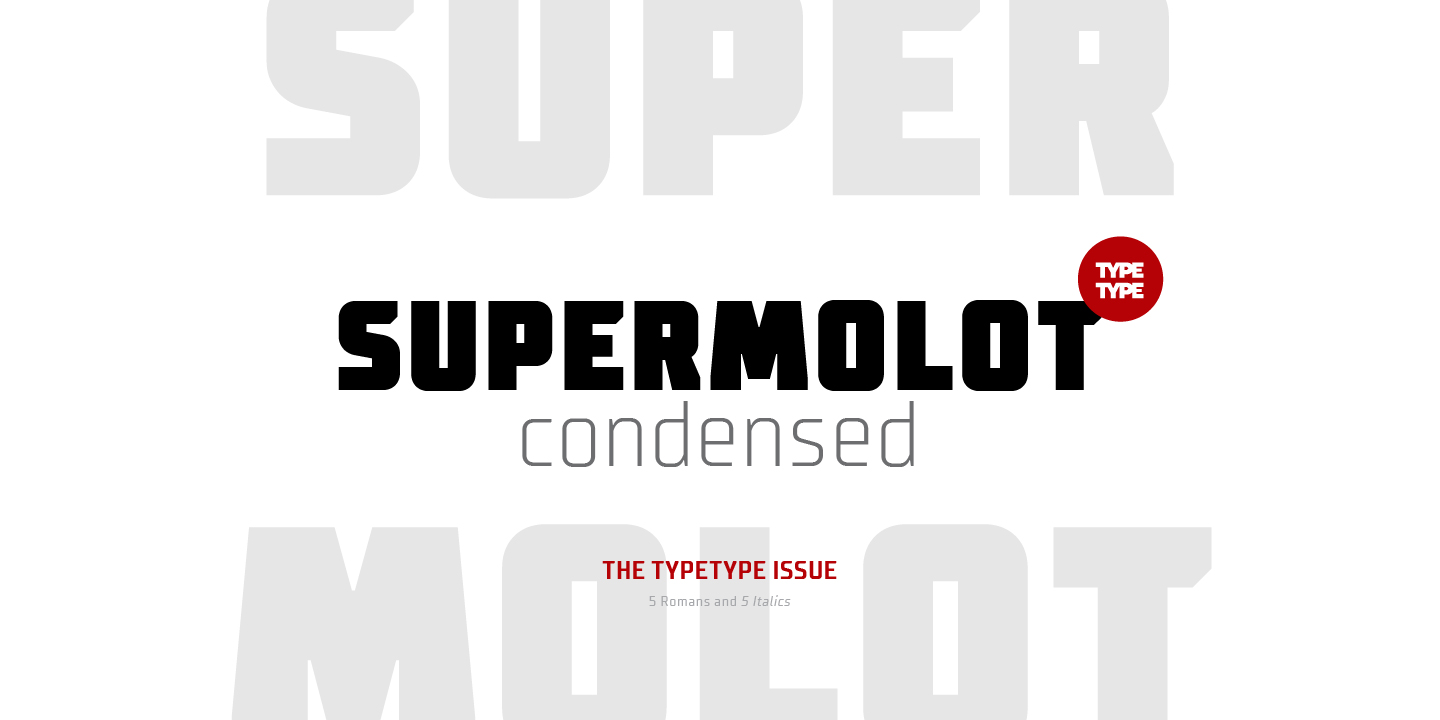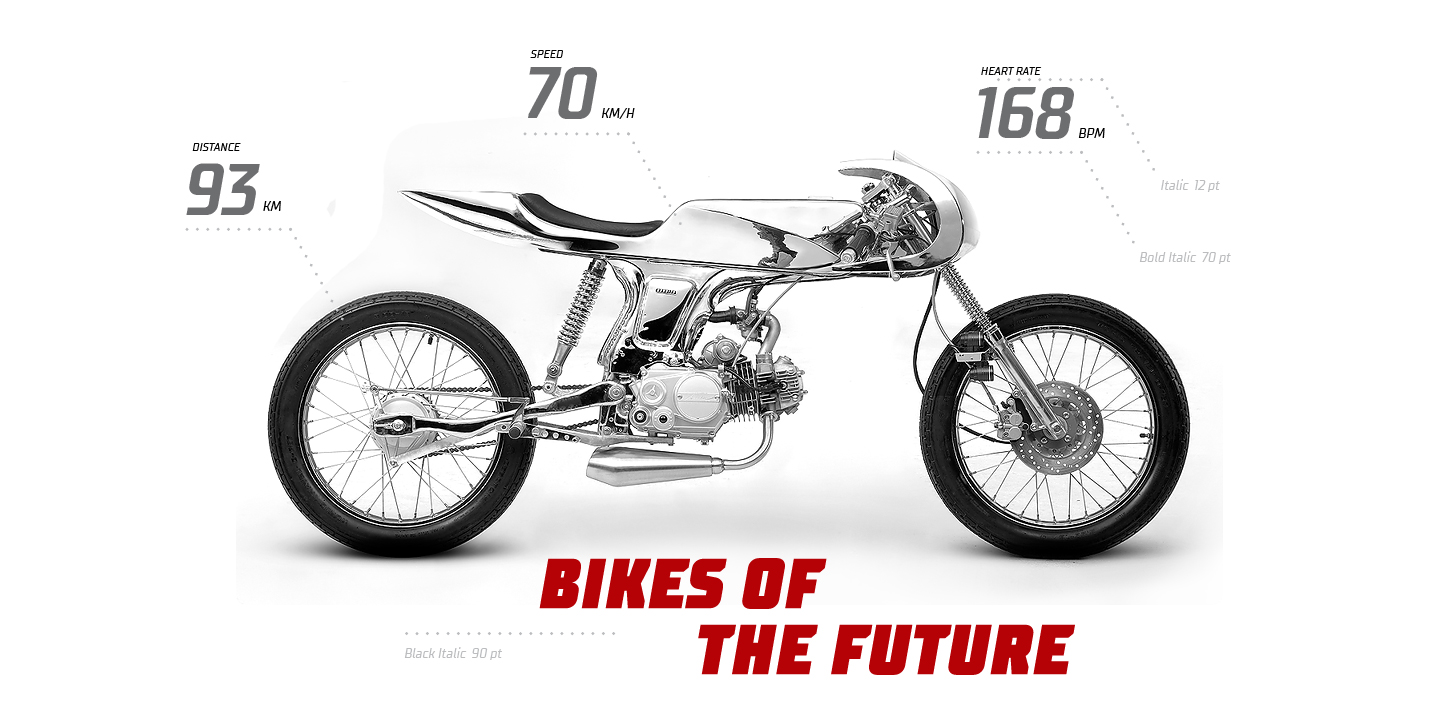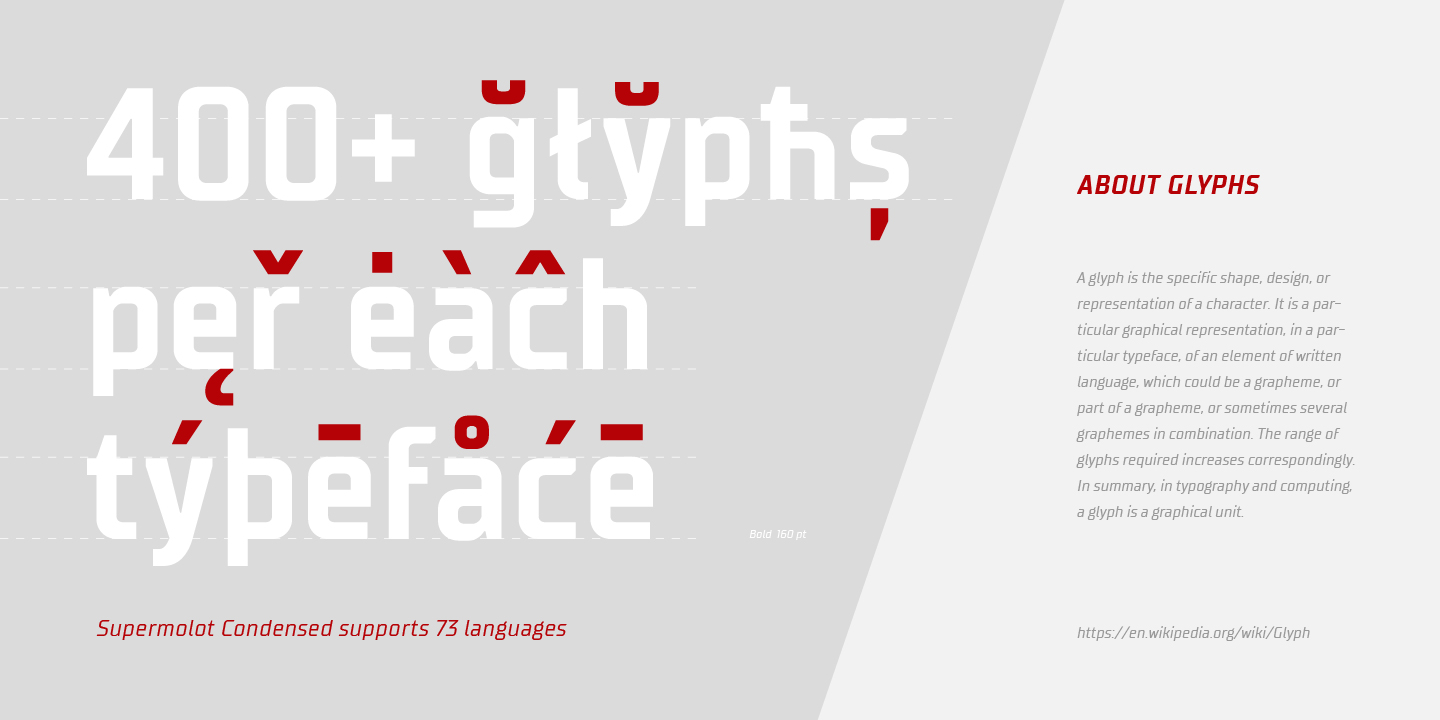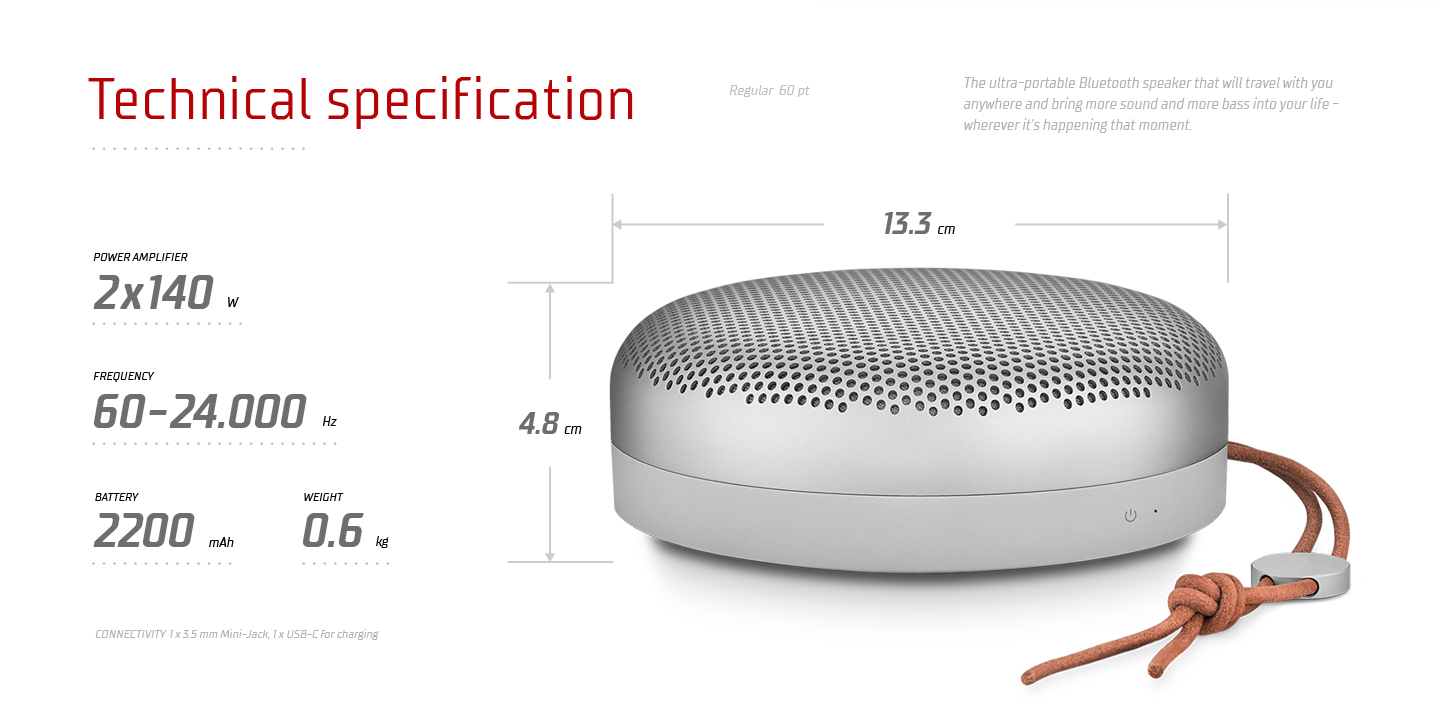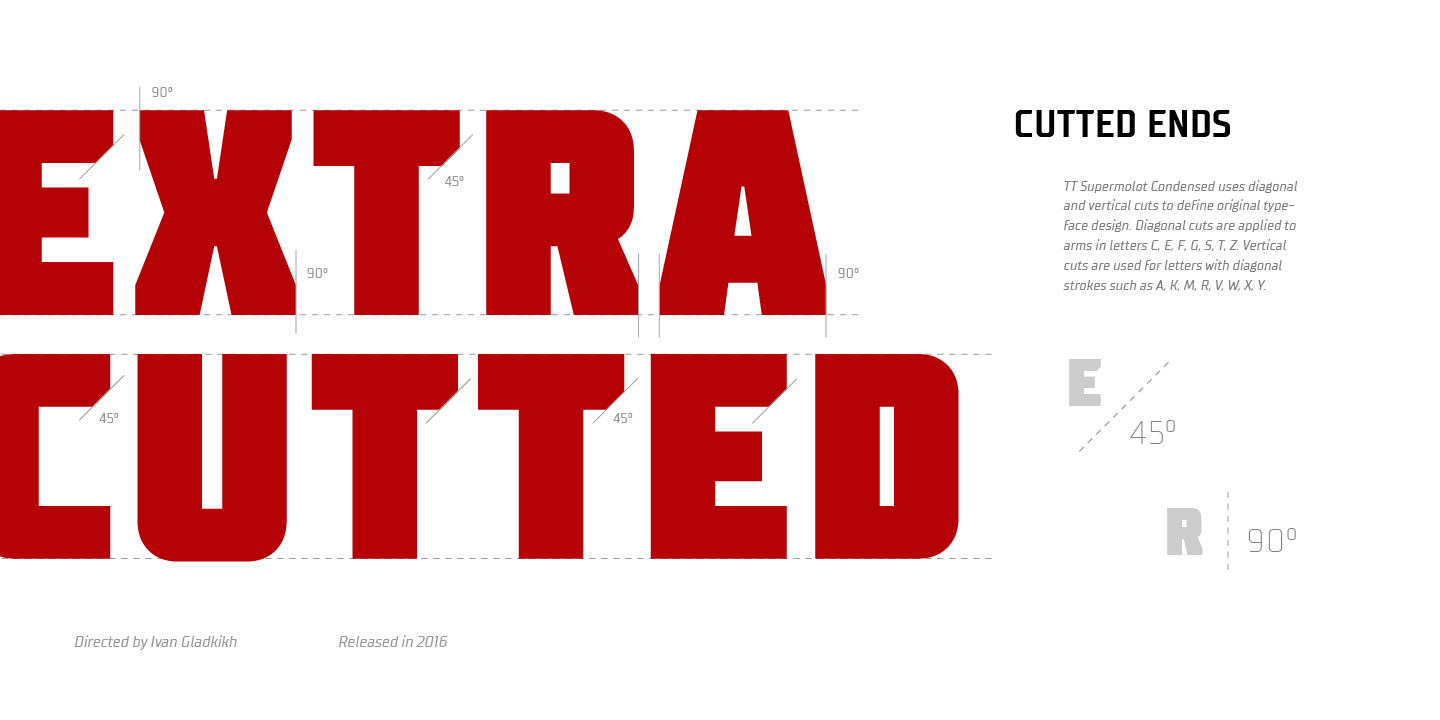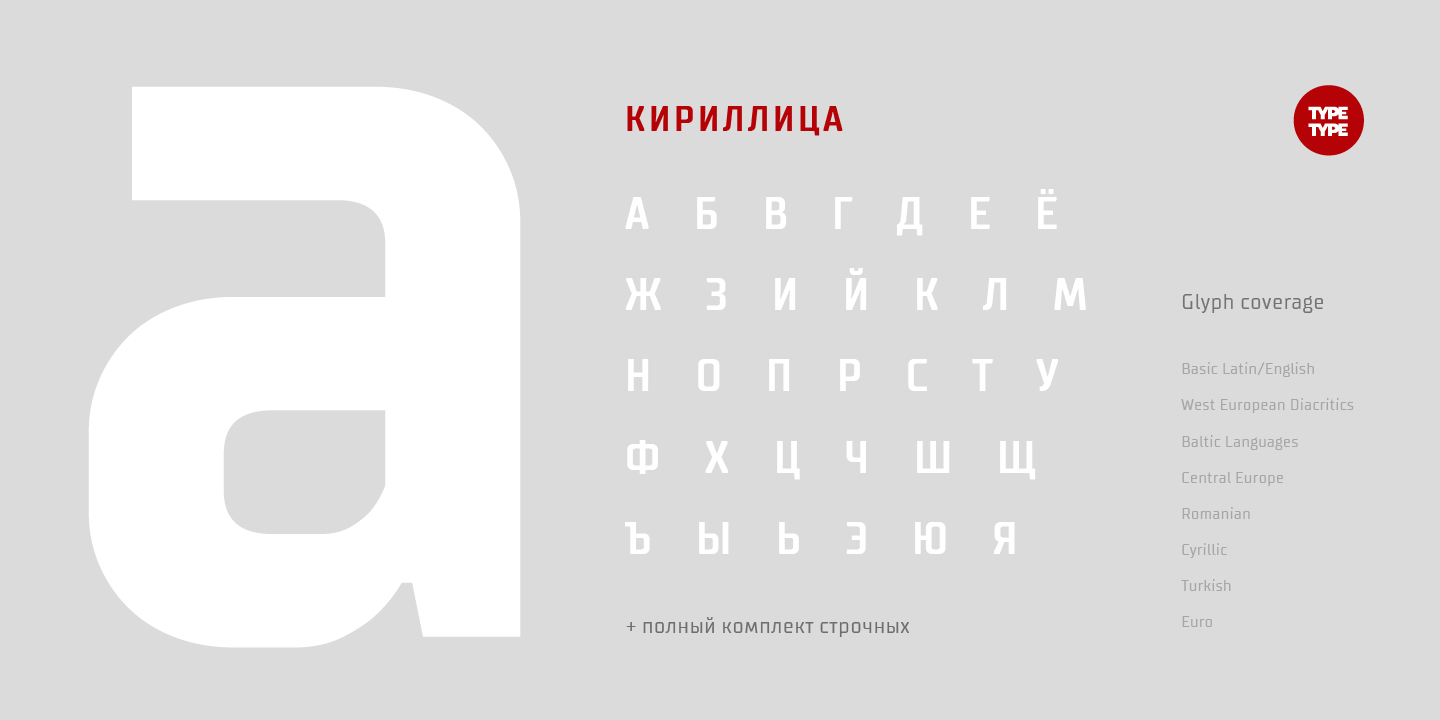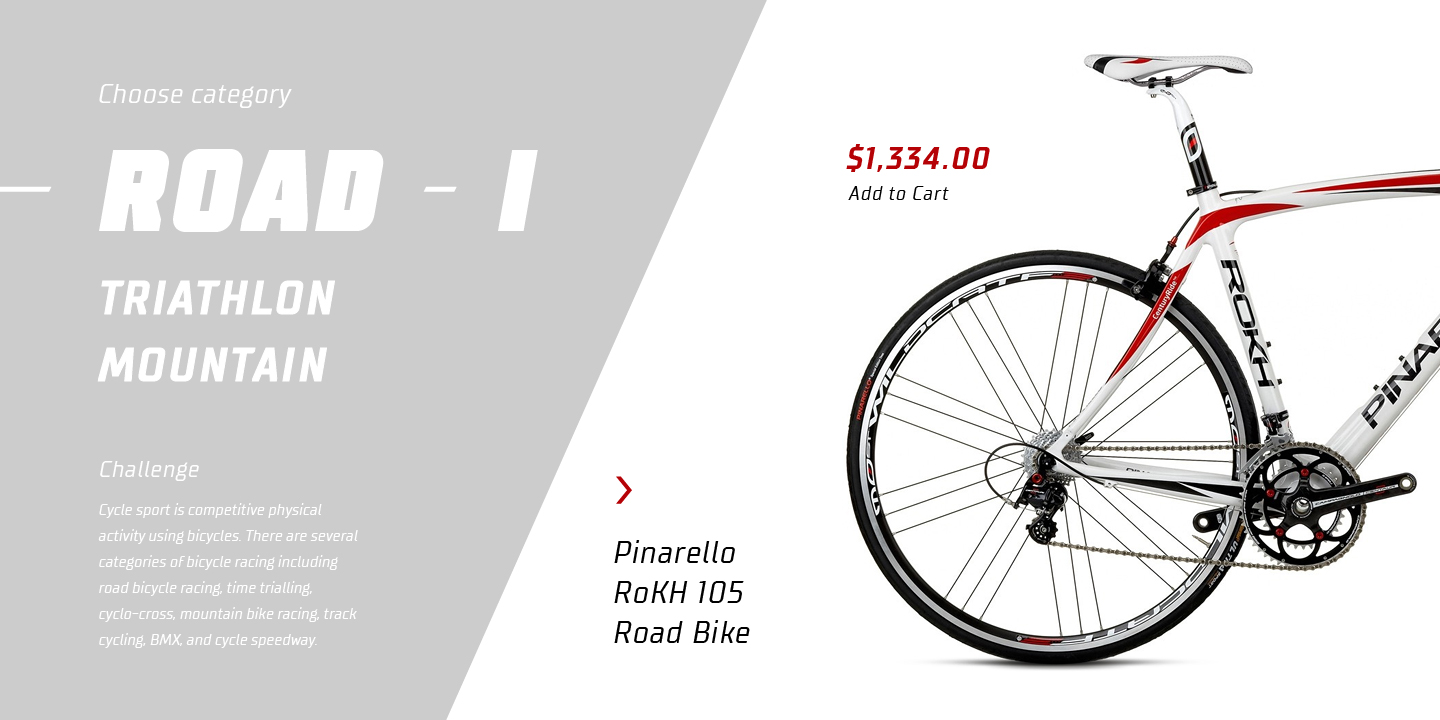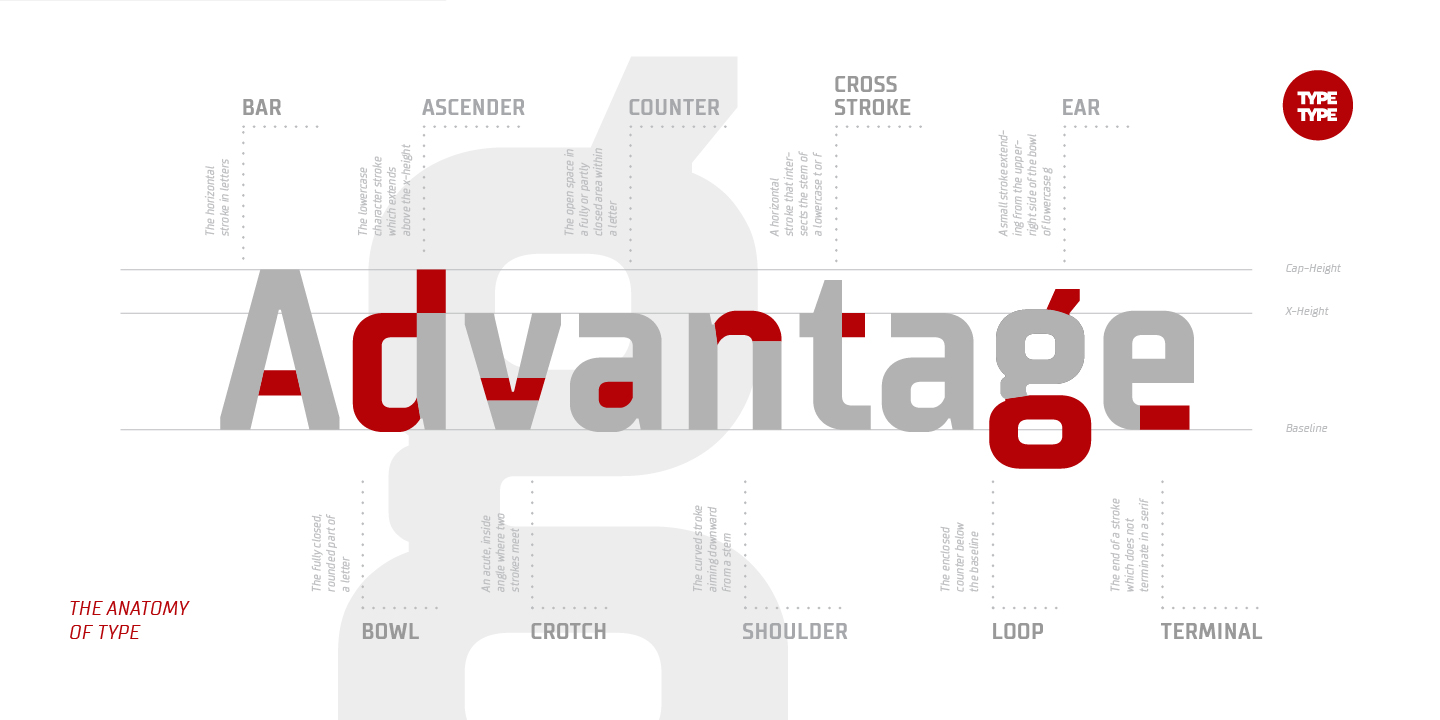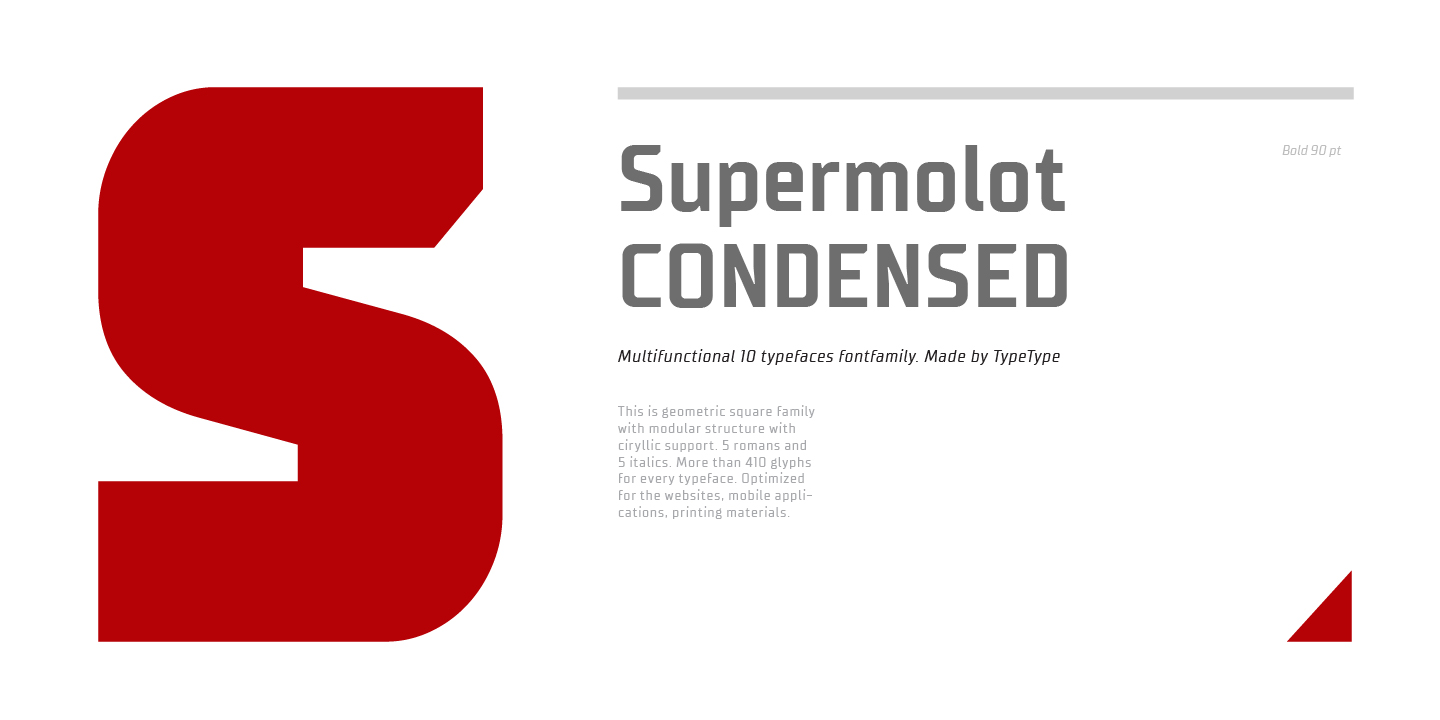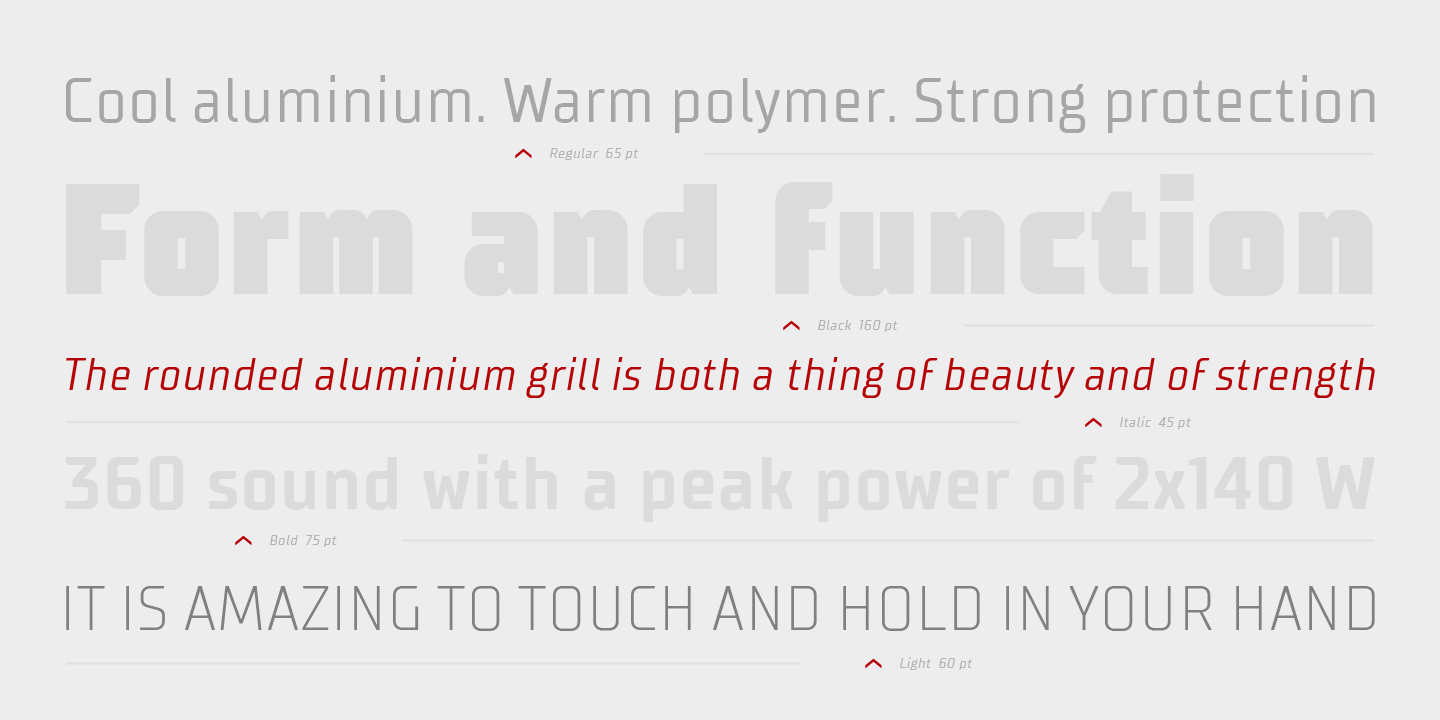
TT Supermolot Condensed is the narrow version of the TT Supermolot font family. Thanks to its open forms, TT Supermolot Condensed fits perfectly into any contemporary technological design and navigation systems. We've already seen this font family in the sports theme (as the main font for hockey teams branding), we've seen TT Supermolot as the main font inside the gameplay of a popular 3D-shooter.
Information transfer in the high-tech areas is the ideal environment for this font family, also TT Supermolot Condensed fits well into army, space, and innovation themes. We've tried to create a maximum number of convenient weights (Thin, Light, Regular, Bold, Black) for you to be able to use this family anywhere, from mobile apps and web pages to big state fairs branding.
Baltic, Central/Eastern Europe, Cyrillic, Romanian, Turkish, Western Europe
Located in St. Petersburg, Russia, TypeType was founded in 2013 by type designer Ivan Gladkikh. Ivan says "My goal has been, from the very beginning, to make quality fonts for a wide audience, and as a result, each of his typefaces is the product of a collaboration with designers and engineers from around the world. We look at our fonts as a piece of art but set to them very strict quality requirements”. TypeType’s fonts have been used for various projects in almost every country in the world. Many of their families are designed with use for logos, websites, advertising, cinema, album covers, and brands in mind.